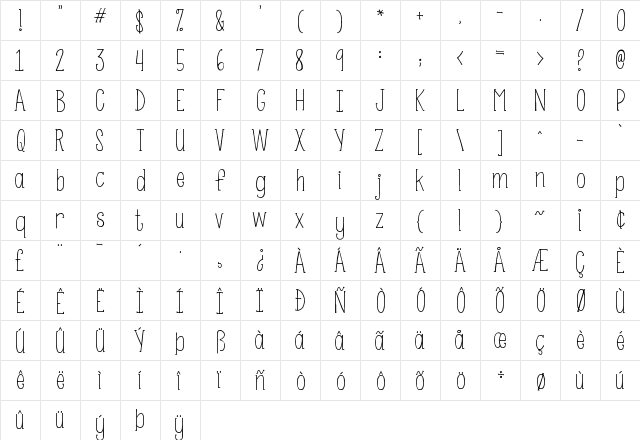
KG Somebody That I Used to Know Regular
| Foundry | Kimberly Geswein |
| Designer | Kimberly Geswein |
Design Context for KG Somebody That I Used to Know Typeface
KG Somebody That I Used to Know is a composed and adaptable typeface that performs quietly and consistently across a wide range of design contexts.